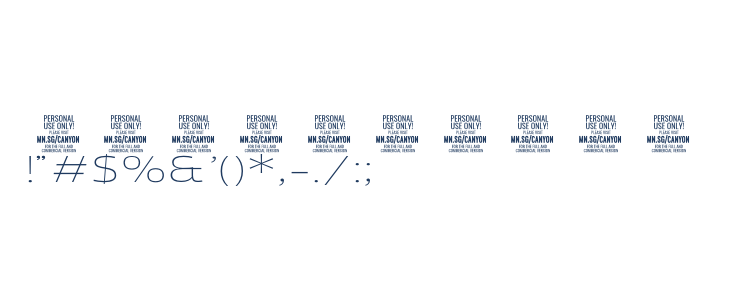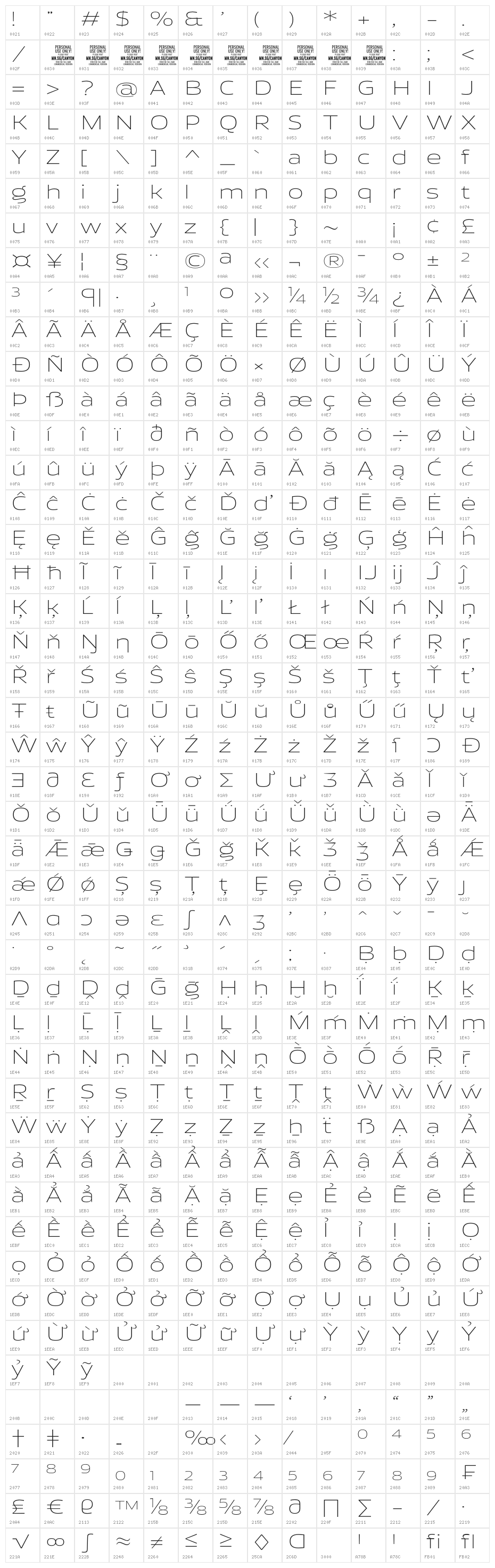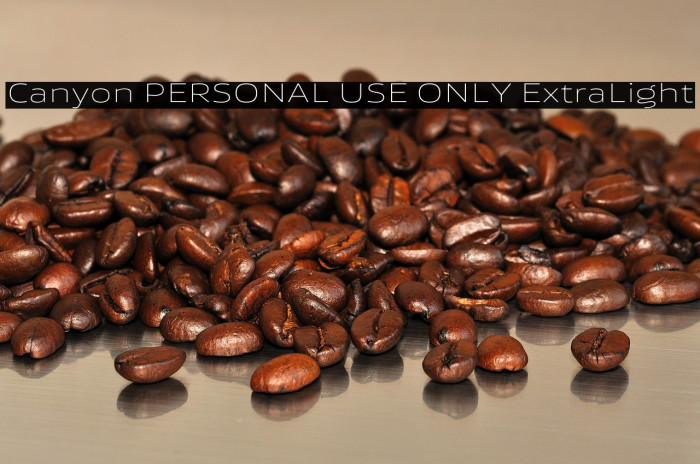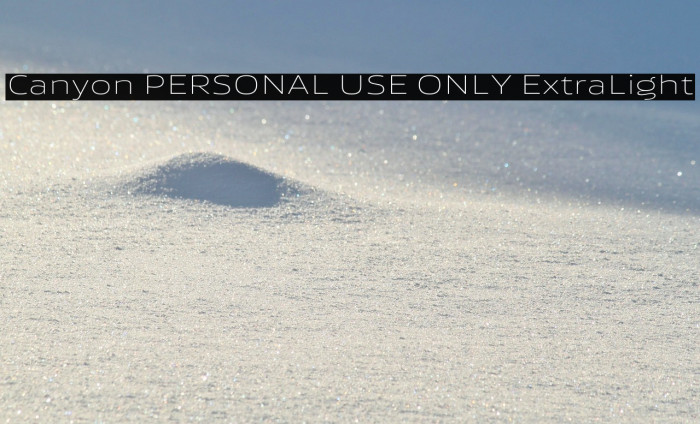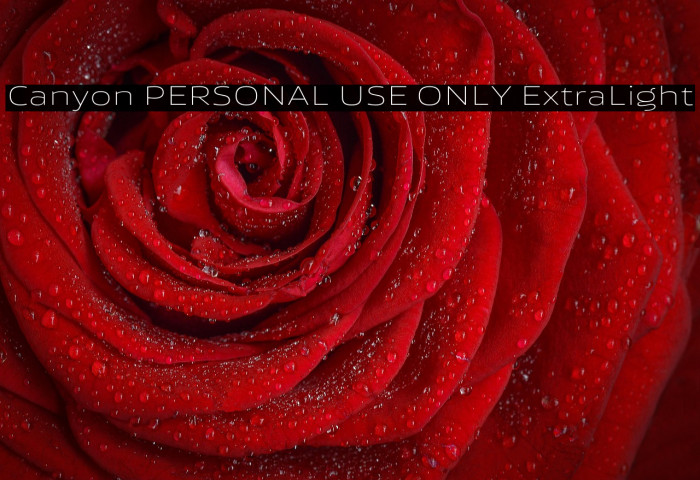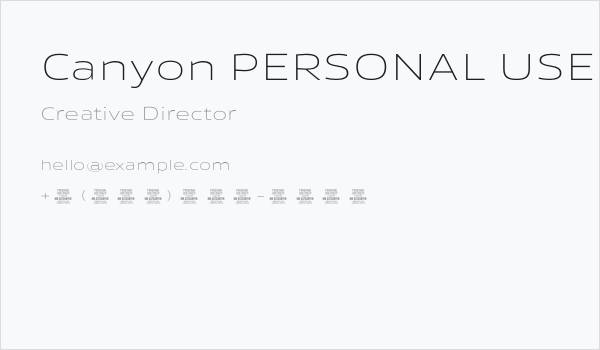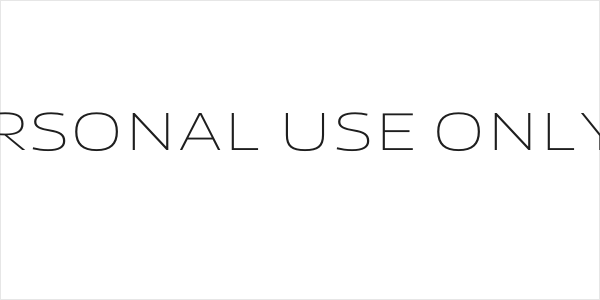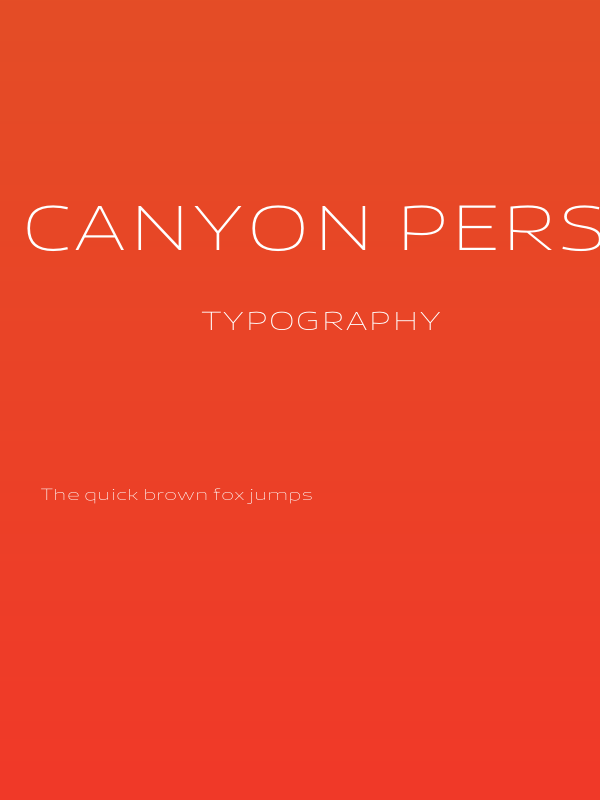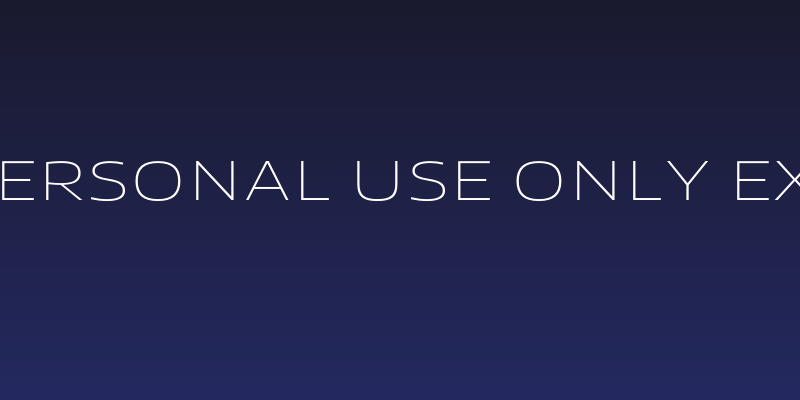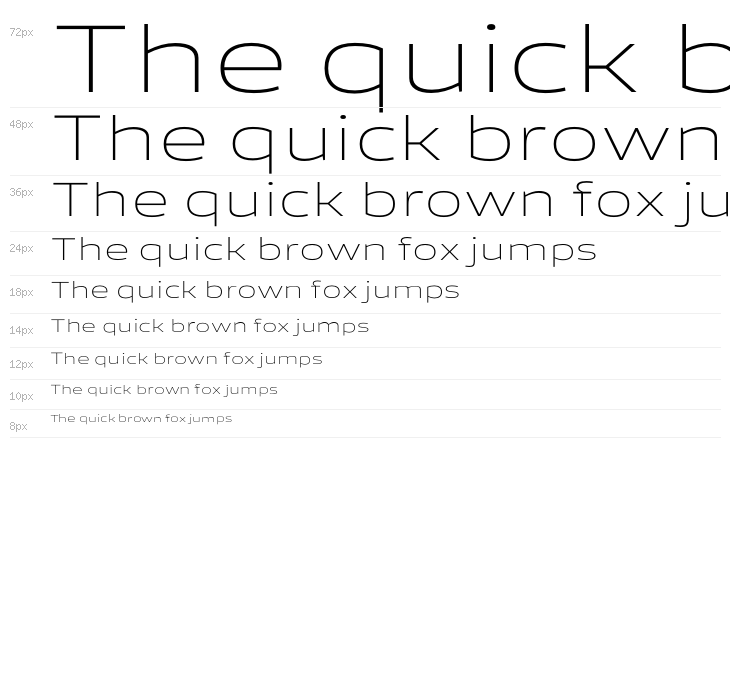
Canyon PERSONAL USE ONLY ExtraLight Font
Canyon PERSONAL USE ONLY ExtraLight Description
This font features a sleek and modern design with clean lines and a minimalist aesthetic. The characters are evenly spaced, providing a balanced and harmonious appearance. The uppercase letters are tall and elegant, while the lowercase letters maintain a consistent flow with subtle curves. The numerals are straightforward and align well with the overall style. Special characters are included, adding versatility to the font's usage. Its extra light weight gives it a delicate and refined look, making it suitable for contemporary design projects.